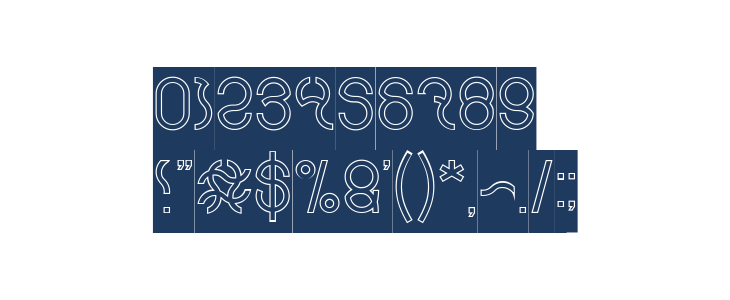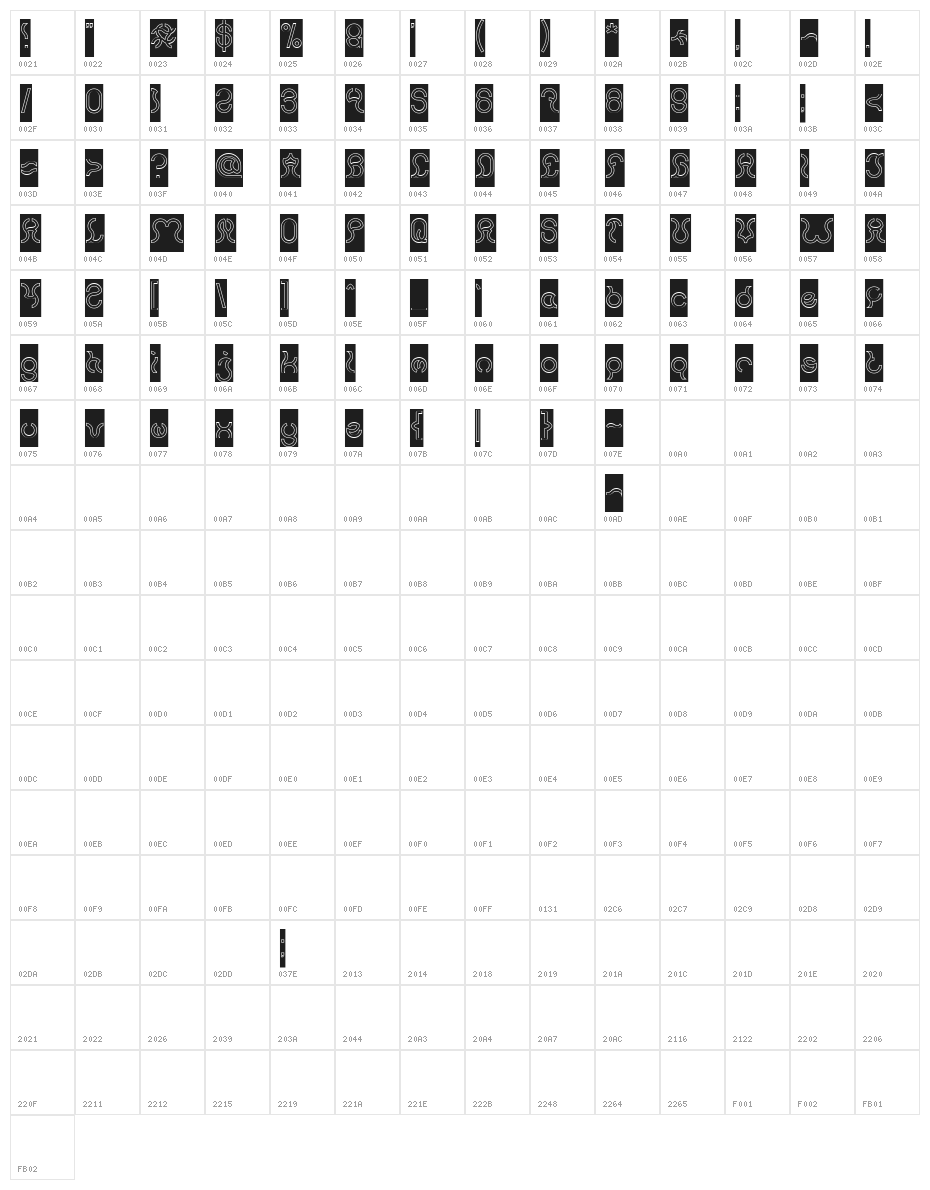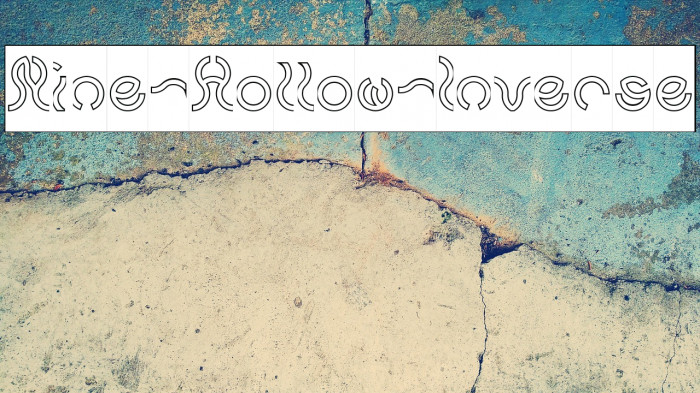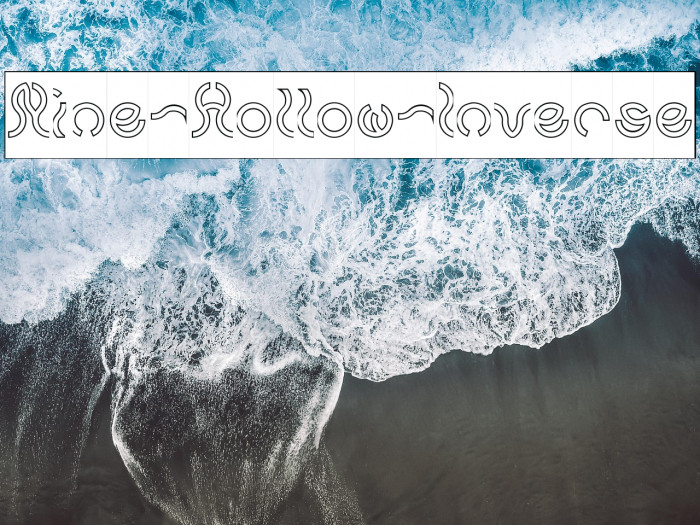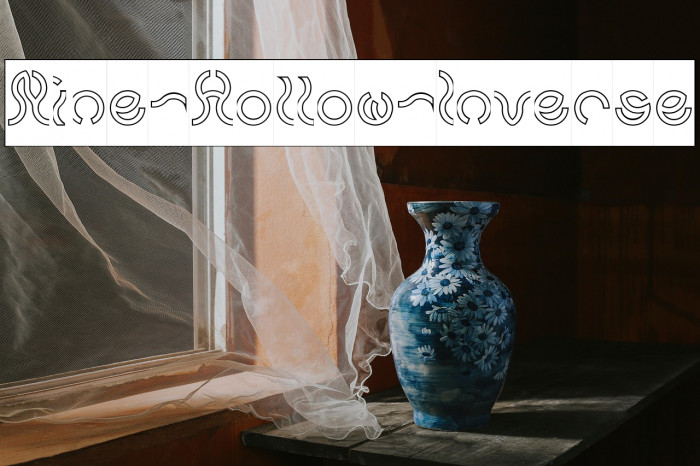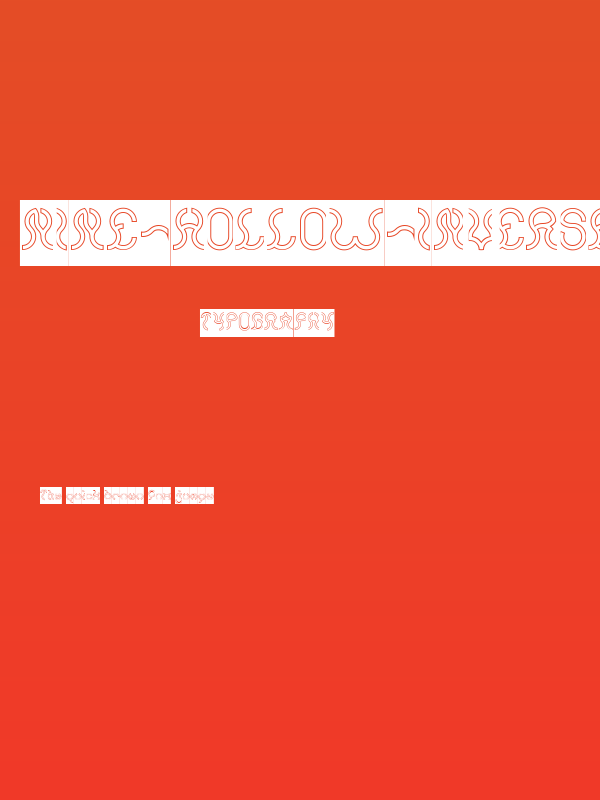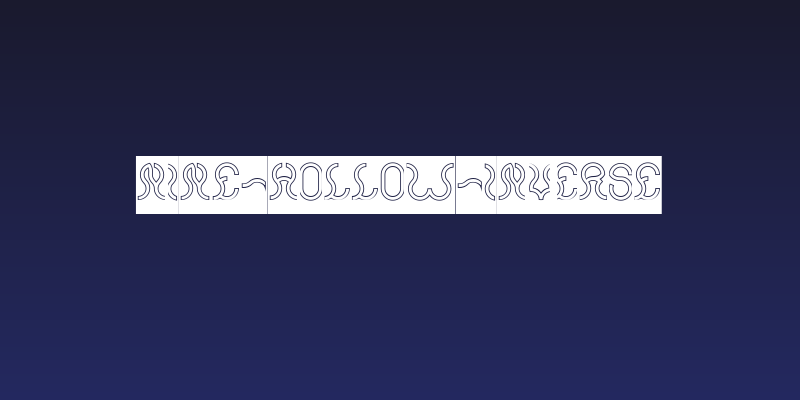
Nine-Hollow-Inverse Font
Nine-Hollow-Inverse Description
This font features a unique hollow design with inverse elements, creating a striking visual effect. The characters are outlined with a consistent thickness, giving them a bold presence while maintaining a sense of lightness due to the hollow centers. The curves and lines are smooth and fluid, adding a modern and artistic flair. The uppercase and lowercase letters maintain a cohesive style, with playful and creative shapes that stand out. Numbers and special characters are designed with the same attention to detail, ensuring a harmonious look across all elements. This font is ideal for projects that require a distinctive and eye-catching typeface.